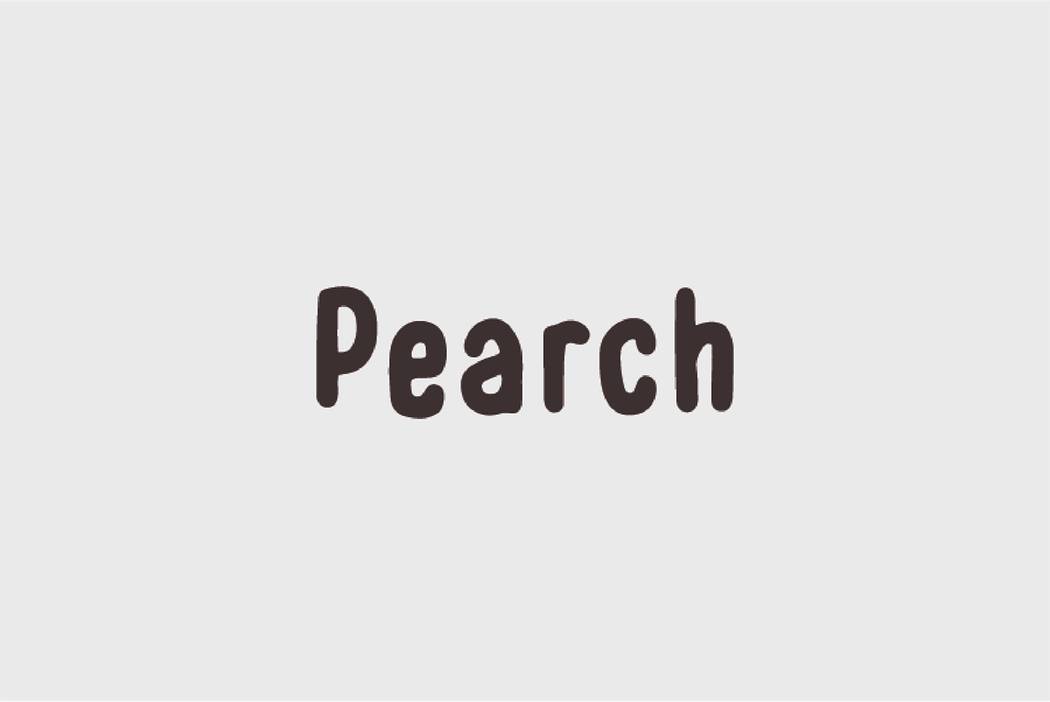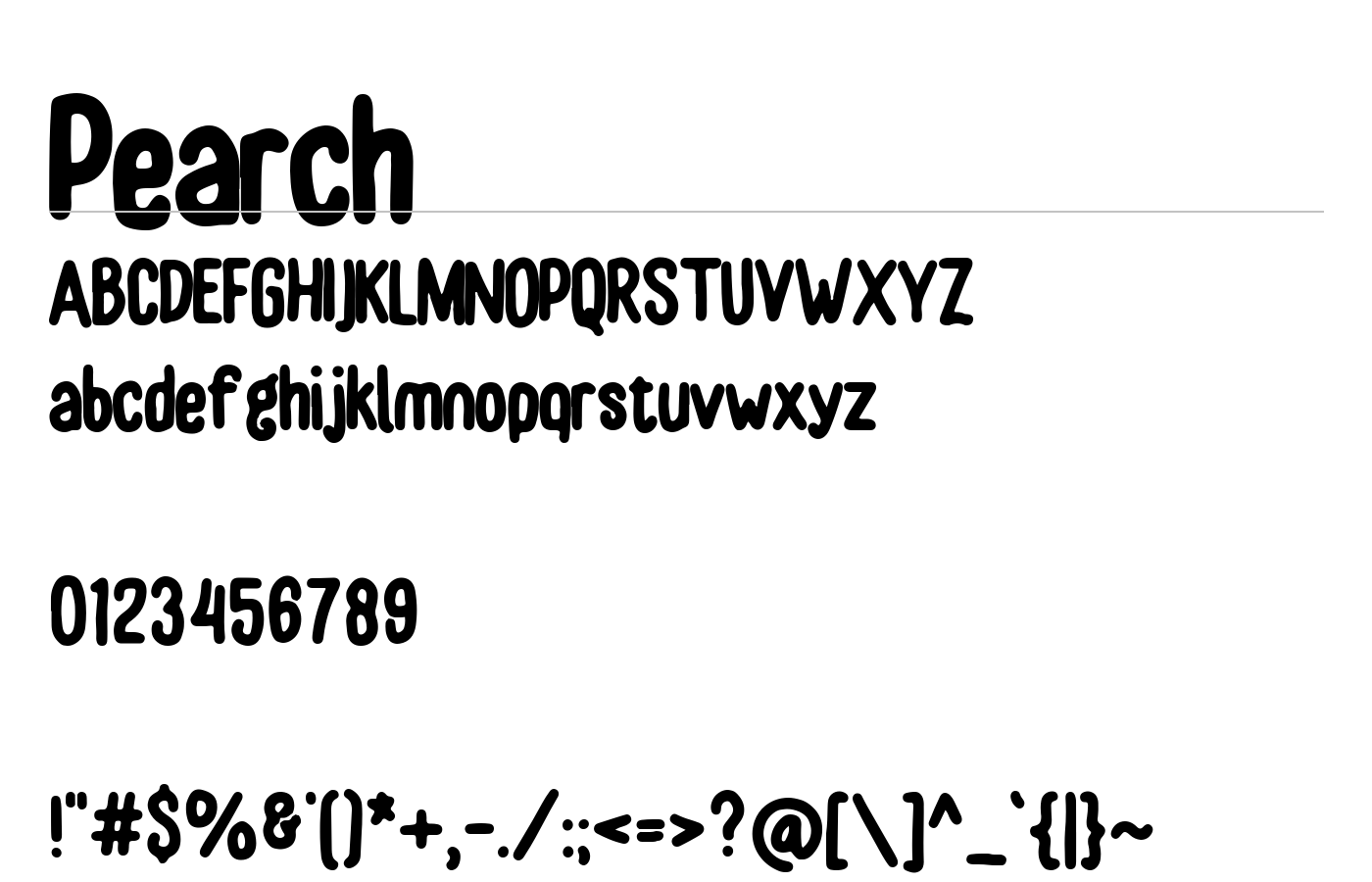
Pearch is a playful and informal sans-serif font characterized by its rounded, slightly irregular letterforms that evoke a hand-drawn feel. With its medium weight, moderate contrast, and quirky shapes, it suits creative projects, children's books, and casual branding, bringing a friendly and approachable vibe to any design. This font works well for headlines, logos, and packaging where a lighthearted and fun personality is desired.
Pearch Font
About Pearch Font
| Font family | Pearch Font |
| Designer | Lady Hanna |